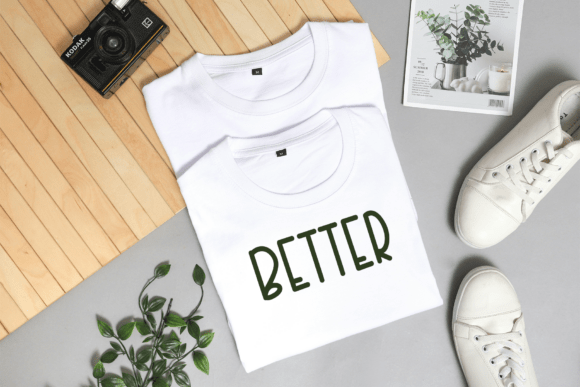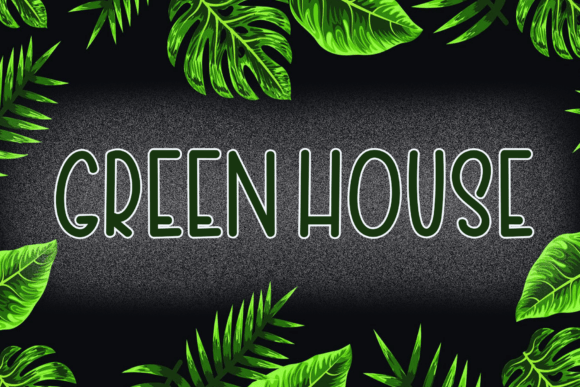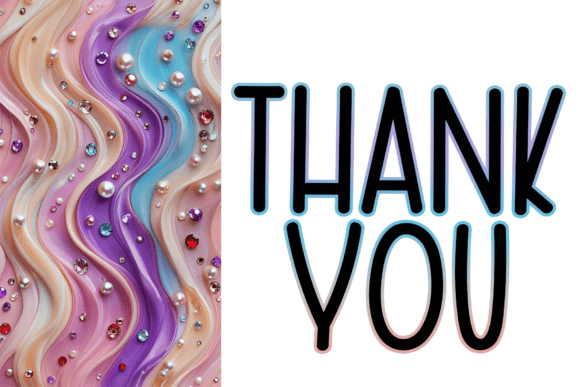
Introducing Heart Font: The Simple Handwritten Font for a Natural Touch
Are you looking for a font that can add a simple and natural feel to your next project? Look no further than Heart Font, a versatile handwritten font that’s perfect for a wide range of applications. From greeting cards to headlines, Heart Font is the perfect choice for designers and crafters who want to add a touch of warmth and personality to their work.
What is Heart Font?
Heart Font is a simple handwritten font that’s designed to be easy to read and fun to use. With its clean lines and natural flow, this font is perfect for creating a warm and inviting atmosphere in your designs. Whether you’re working on a greeting card, a poster, or a website, Heart Font is sure to add a touch of personality and whimsy to your project.
Key Features of Heart Font
- Simple and Handwritten: Heart Font is a handwritten font that’s designed to look simple and natural. It’s perfect for creating a warm and inviting atmosphere in your designs.
- Versatile: Heart Font is a versatile font that can be used for a wide range of applications, from greeting cards to headlines.
- Easy to Read: Heart Font is designed to be easy to read, making it perfect for body text and headlines.
- Natural Flow: Heart Font has a natural flow that’s perfect for creating a sense of movement and energy in your designs.
Uses for Heart Font
Heart Font is a versatile font that can be used for a wide range of applications, including:
- Greeting Cards: Heart Font is perfect for creating warm and inviting greeting cards for special occasions like birthdays, weddings, and holidays.
- Headlines: Heart Font is a great choice for headlines, adding a touch of personality and whimsy to your titles and headings.
- Posters: Heart Font is perfect for creating eye-catching posters for events, promotions, and products.
- Websites: Heart Font can be used to add a touch of warmth and personality to your website, making it more inviting and engaging for visitors.
- Crafting: Heart Font is a great choice for crafters who want to add a personal touch to their projects, such as scrapbooking, journaling, and card making.
Tips for Using Heart Font
Here are a few tips for using Heart Font in your designs:
- Pair with Other Fonts: Heart Font pairs well with other fonts, such as sans-serif fonts and script fonts. Experiment with different combinations to find the perfect look for your project.
- Use for Headlines and Body Text: Heart Font is versatile enough to be used for both headlines and body text. Use it to create a cohesive look throughout your design.
- Add a Personal Touch: Heart Font is perfect for adding a personal touch to your designs. Use it to create a sense of warmth and personality in your work.
Heart Font is a simple handwritten font that’s perfect for designers and crafters who want to add a touch of warmth and personality to their work. With its clean lines, natural flow, and versatility, Heart Font is sure to become a favorite in your font collection. Whether you’re working on a greeting card, a poster, or a website, Heart Font is the perfect choice for adding a simple and natural feel to your next project.